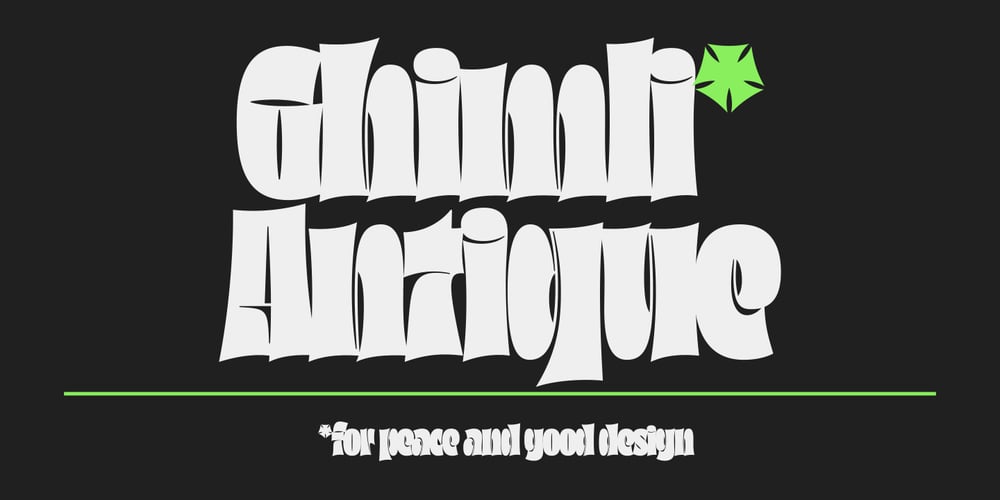
Ghimli Font Family was designed by Anosov Vladimir and published by Anonymous Typedesigners. Ghimli contains 1 styles and family package options. Ghimli Antique was created using the ping-pong method, based on the graphic idea of Artem Rulev and the participation of Vladimir Anosov in the future. Then we sent the font file to each other, adding something of our own and making corrections, and so on many times. Ghimli Antique has already managed to get 2nd place in the Granshan competition in the Cyrillic section.The name was obtained by combining the name of the dwarf Gimli and Studio Ghibli. The font is quite evil, incredibly dense, bold. It looks like when the dwarves closed ranks and go to defend their lands from the invasion of the orcs.Suitable for short word design, logo creation, menu layout and use in movies about gnomes and anything fantastic.